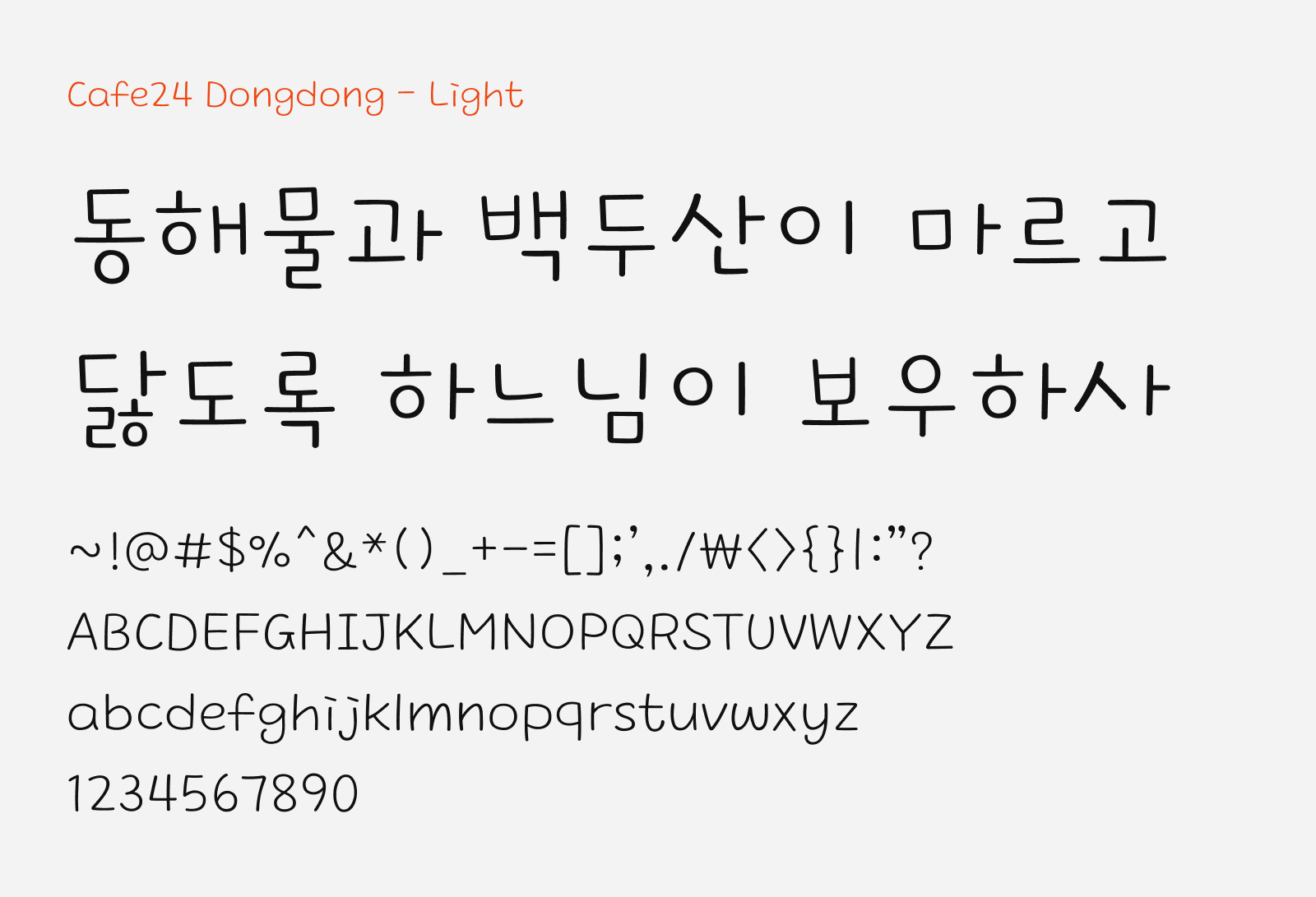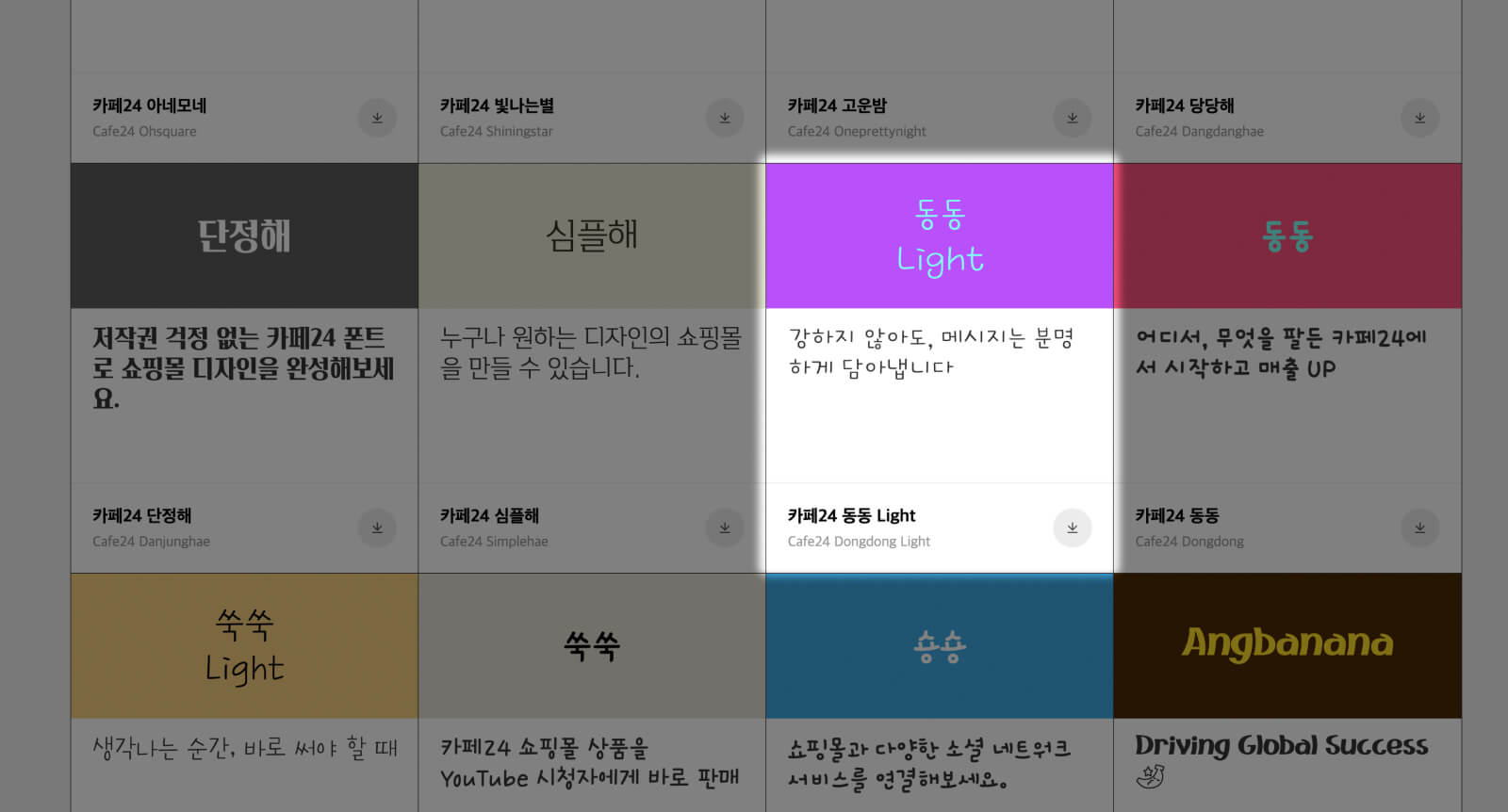
Cafe24 Dongdong Light
Cafe24 Dongdong Light (카페24 동동 Light) is the clean and geometrical handwriting style free Korean font. It’s the light font weight version of the Regular version of Cafe24 Dongdong. It carries the same design characteristics where the strokes are cleanly drawn without any additional decorative elements. Basically it’s been reduced to the most important component to form the particular character.
Cafe Dongdong Light creates a substantial contrast to the regular version, where they can be paired to create interesting visual contrast. It works well for designs that want to look clean but at the same time retain that friendly and personal look and feel. You can download and use this font for any personal and commercial projects, as this font is released under SIL Open Font License.